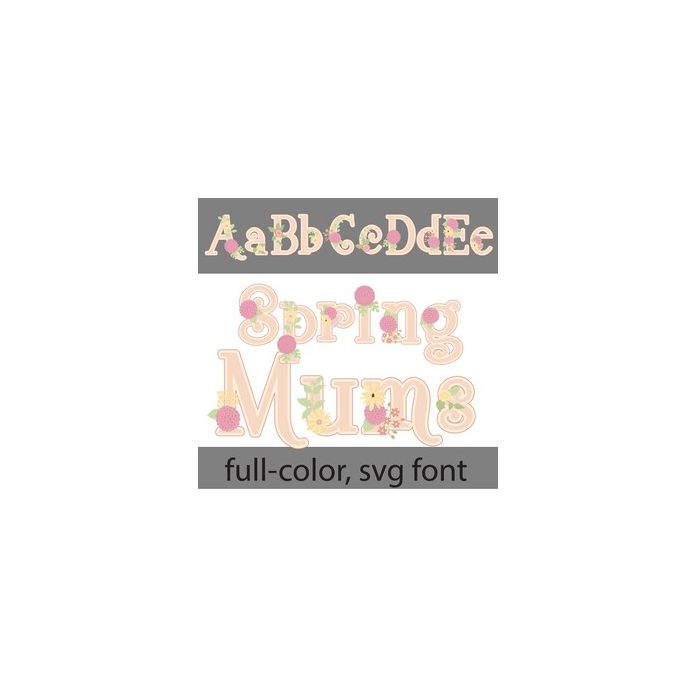
This pretty, full-color font features pastel lettering and chrysanthemums. There is an alt case w/ additional colors you can access through your system or Silhouette's glyph map.